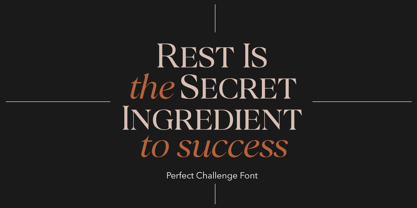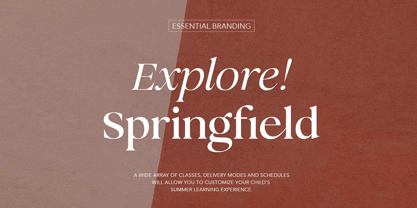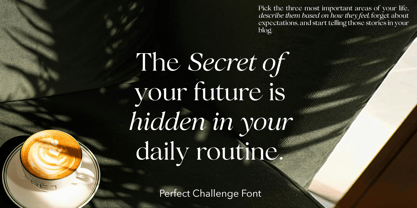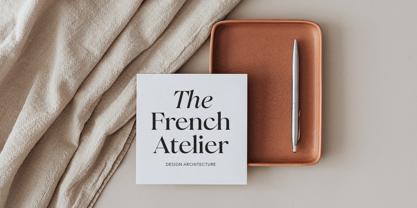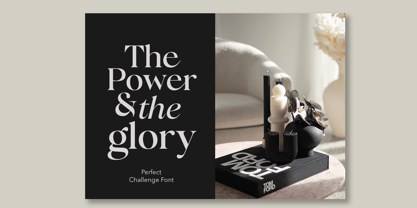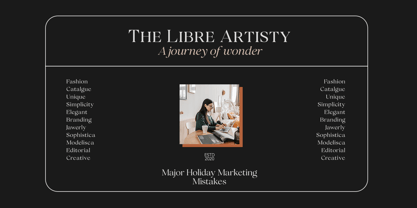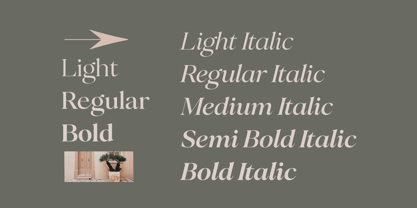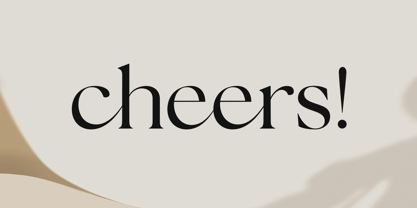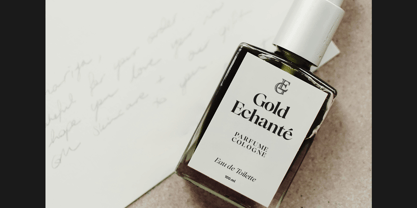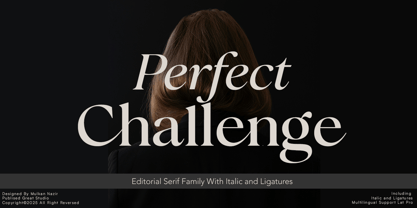
Perfect Challenge
by Great Studio
The Perfect Challenge Font Family was designed by Mulkan Nazir and published by Great Studio. Perfect Challenge contains 8 styles and family package options.
Perfect Challenge is a refined, high-end typeface that exudes sophistication and timeless elegance. Blending smooth, flowing curves with sharp, deliberate strokes, it strikes the perfect balance between classic luxury and modern prestige. Every letterform is meticulously crafted to convey grace, confidence, and exclusivity.
Whether used in uppercase for bold impact or in elegant scripts for delicate detail, Perfect Challenge is designed to elevate any visual experience. Its elegant flair and luxurious aura make it a standout choice for upscale branding and premium designs.
Key Features:
• Stylish ligatures and alternate characters
• High contrast between thick and thin strokes
• Graceful serifs or calligraphic touches (depending on style variant)
• Optimized for print and digital elegance
• Multilingual support
Ideal Uses:
• Luxury branding (fashion, cosmetics, jewelry)
• High-end product packaging (perfume bottles, wine labels, gourmet foods)
• Wedding invitations and premium event stationery
• Magazine headers and editorial design
• Logo design for boutique businesses
• Hotel and spa branding for upscale experiences